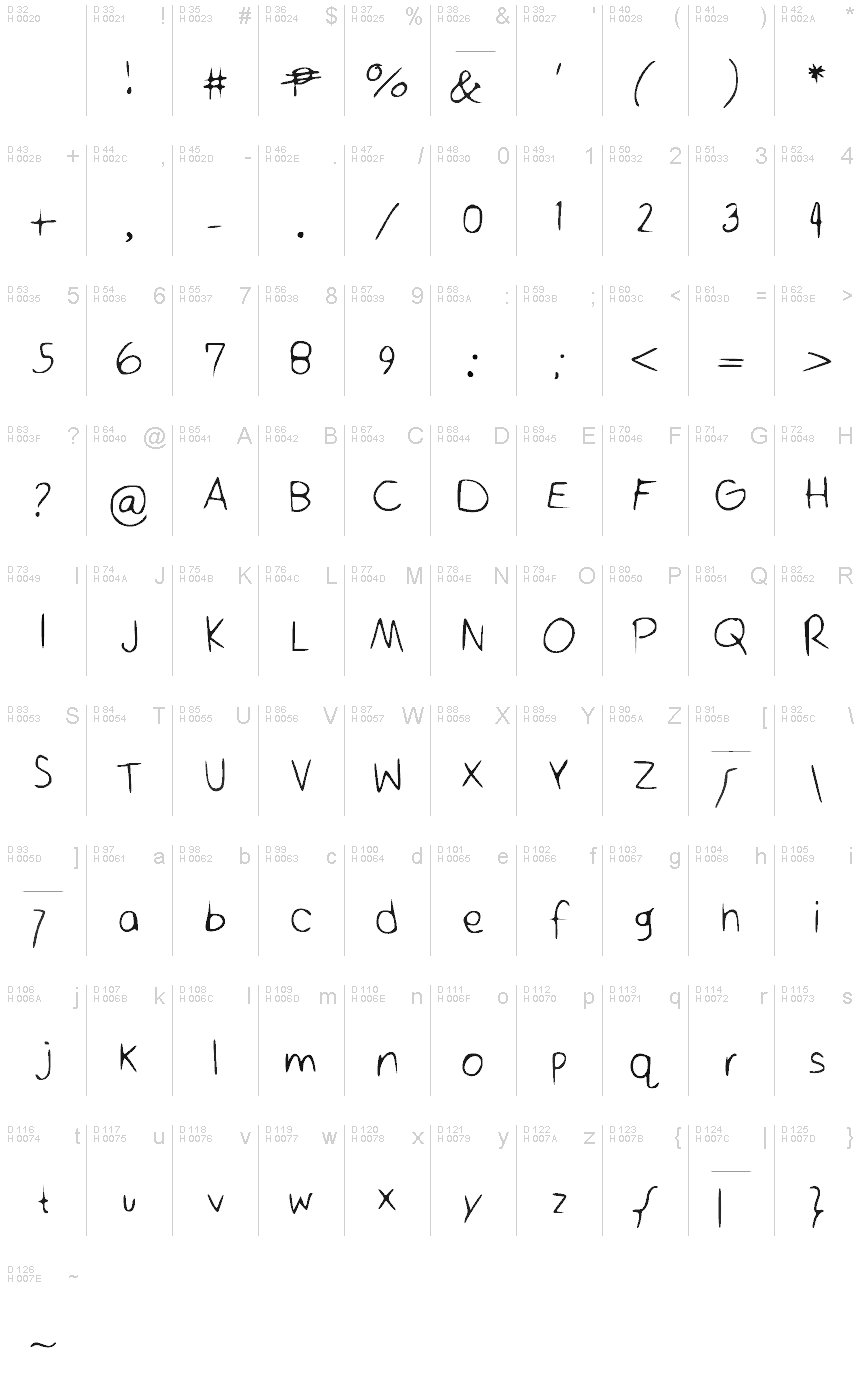
OhHello
Oh Hello is a captivating handwritten font that exudes a warm, friendly vibe. Designed by Jodie A, this font's whimsical yet legible style lends itself beautifully to a range of design applications. Its organic, freehand-like strokes and slight irregularities create a charming, personal touch that can elevate everything from branding and packaging to invitations and editorial layouts.
The font's versatility shines through its ability to seamlessly transition between playful and sophisticated, making it a versatile choice for designers seeking to infuse their projects with a touch of approachable elegance.